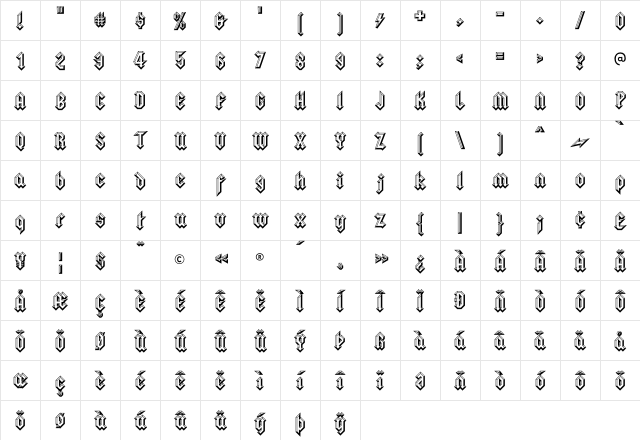
Complete Squealer Embossed glyph index. Displaying only characters natively supported by Squealer Embossed font.
Squealer is a composed and adaptable typeface that performs quietly and consistently across a wide range of design contexts.